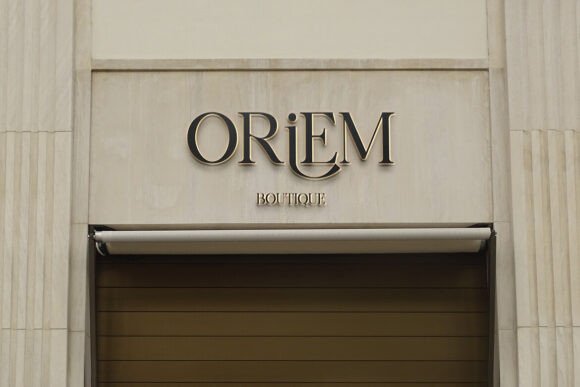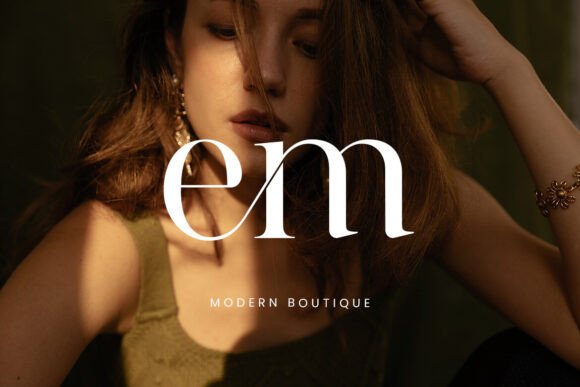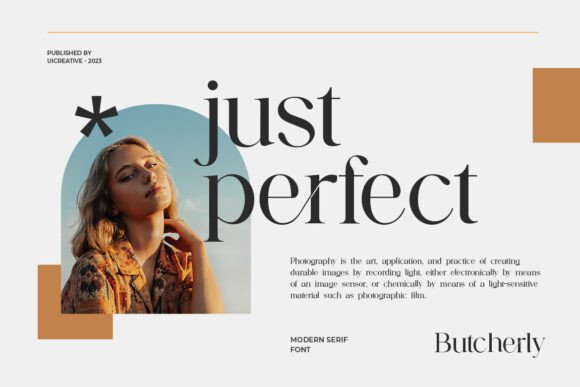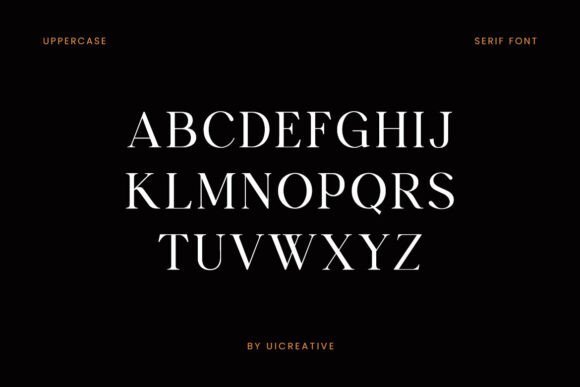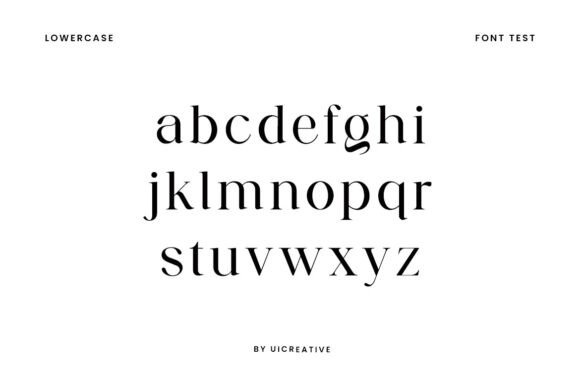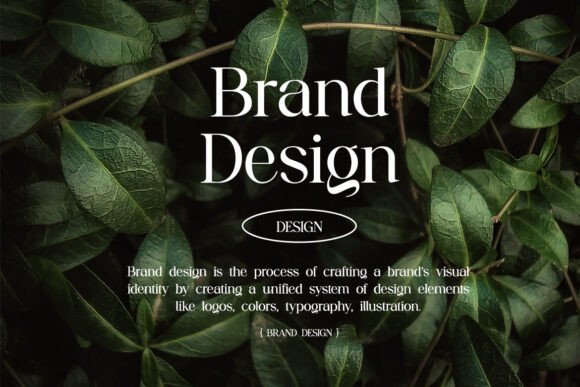
Introducing Butcherly Font: The Modern Serif Typeface for Elegant Designs
In the world of typography, a good font can make all the difference in creating a lasting impression. For designers and crafters looking for a modern serif typeface that exudes elegance and sophistication, Butcherly Font is an excellent choice. This versatile font is designed to cater to a wide range of projects, from signature and stationery to logo design, wedding typography, and more.
What is Butcherly Font?
Butcherly Font is a contemporary serif typeface that boasts a unique blend of classic and modern elements. Its sleek lines, refined curves, and precise craftsmanship make it an ideal choice for designers seeking a font that can elevate their projects to new heights. Whether you’re working on a logo, magazine cover, or website header, Butcherly Font is sure to impress.
Key Features of Butcherly Font
- Modern serif design: Butcherly Font features a modern take on the classic serif typeface, making it perfect for designers looking for a fresh and sophisticated look.
- Versatile: This font is suitable for a wide range of projects, including signature, stationery, logo design, wedding typography, magazine or book covers, website headers, branding, and more.
- Masculine and feminine qualities: Butcherly Font displays both masculine and feminine qualities, making it an excellent choice for fashion-related branding or editorial design.
- Elegant and sophisticated: The font’s sleek lines, refined curves, and precise craftsmanship give it an air of elegance and sophistication, perfect for high-end designs.
Use Cases for Butcherly Font
Butcherly Font is an incredibly versatile typeface that can be used in a variety of design projects. Here are some examples:
- Logo design: Create a lasting impression with a custom logo designed using Butcherly Font.
- Wedding typography: Add a touch of elegance to your wedding invitations, programs, or signage with this beautiful font.
- Magazine or book covers: Use Butcherly Font to create eye-catching covers for your publications.
- Website headers: Elevate your website’s design with a custom header featuring Butcherly Font.
- Branding: Establish a strong brand identity with this sophisticated typeface.
- Fashion-related design: Butcherly Font’s masculine and feminine qualities make it perfect for fashion-related branding or editorial design.
Why Choose Butcherly Font?
With so many fonts available, why choose Butcherly Font? Here are a few reasons:
- Unique design: Butcherly Font’s modern serif design sets it apart from other typefaces.
- High-quality craftsmanship: The font’s precise craftsmanship ensures that it will look great in any design project.
- Versatility: Butcherly Font can be used in a wide range of projects, making it a great addition to any designer’s toolkit.
- Elegance and sophistication: This font exudes elegance and sophistication, making it perfect for high-end designs.
In conclusion, Butcherly Font is an excellent choice for designers and crafters looking for a modern serif typeface that can elevate their projects to new heights. Its unique design, versatility, and high-quality craftsmanship make it perfect for a wide range of design projects. Whether you’re working on a logo, magazine cover, or website header, Butcherly Font is sure to impress.